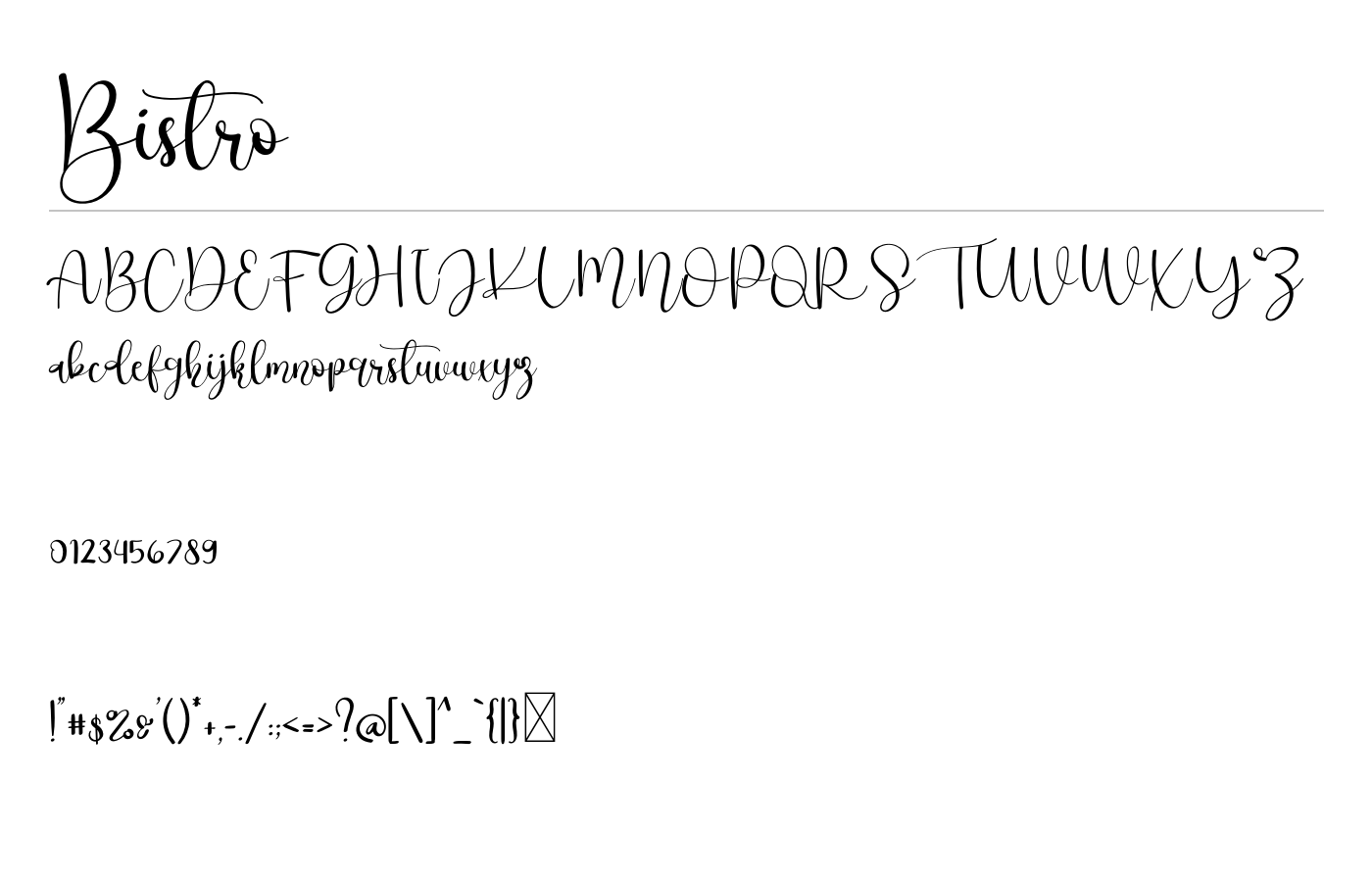
Bistro is a delicate and elegant script font with flowing, hand-drawn letterforms that convey a charming, whimsical feel. Its thin strokes and graceful curves make it ideal for projects seeking a romantic, stylish touch such as invitations, branding for boutique shops, or decorative headlines. This font adds a personal and inviting character, perfect for creative and feminine designs.
Bistro Font
About Bistro Font